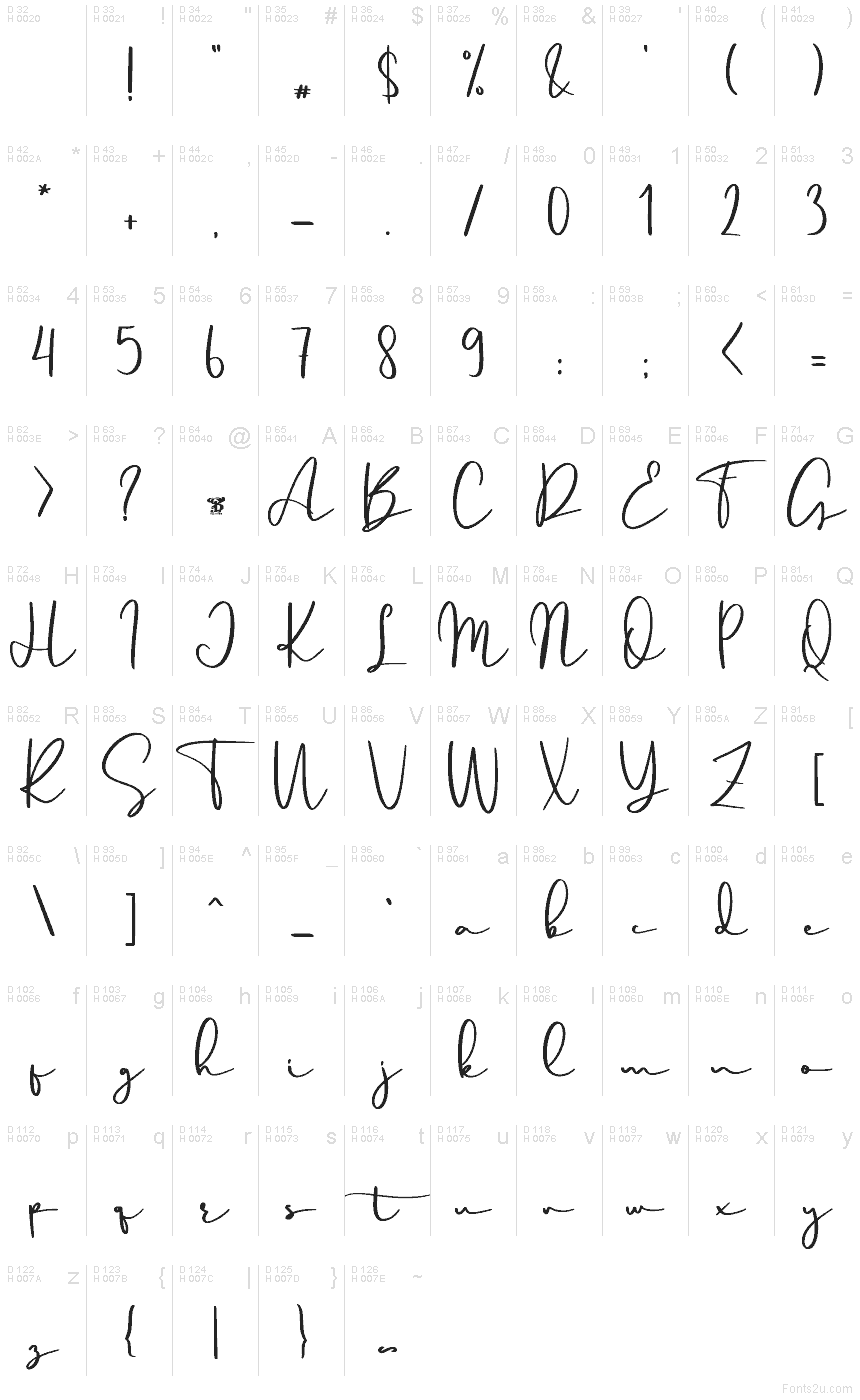
Gianinos Free Regular
Gianinos font opens avenues for unique design projects with its handwritten aesthetics. Crafted by Sian Haniffan Hadi, this free handwriting font presents a signature style to the table, bringing together both casual elegance through modern letters.
A neat way to add a personal touch to your proposals and ideas, Gianinos is ideal for branding designs and advertisements, especially those that focus on products intended for female audiences. It can also be used for package designs, cosmetics labels and accessories logos as well as online platforms when you create engaging posts and give the name of the influencers who join you on this journey an elegant introduction.